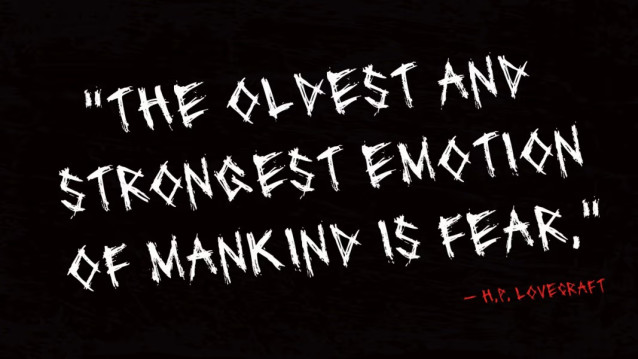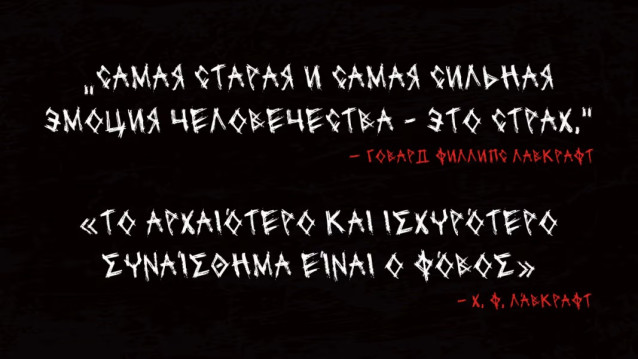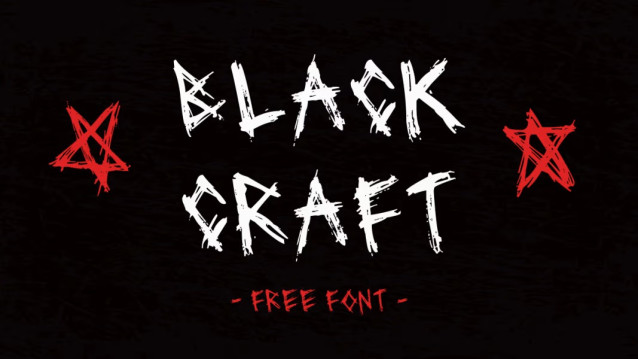
Blackcraft Font
Blackcraft Font is a jagged display typeface with a dark, scratch-built energy. Its caps-only forms use sharp angles, rough brush-like strokes, and splintered edges, giving the alphabet an abrasive handmade rhythm.
The font works best where impact matters more than quiet readability: horror posters, metal or punk artwork, album covers, gaming titles, Halloween graphics, apparel, and bold social media pieces.